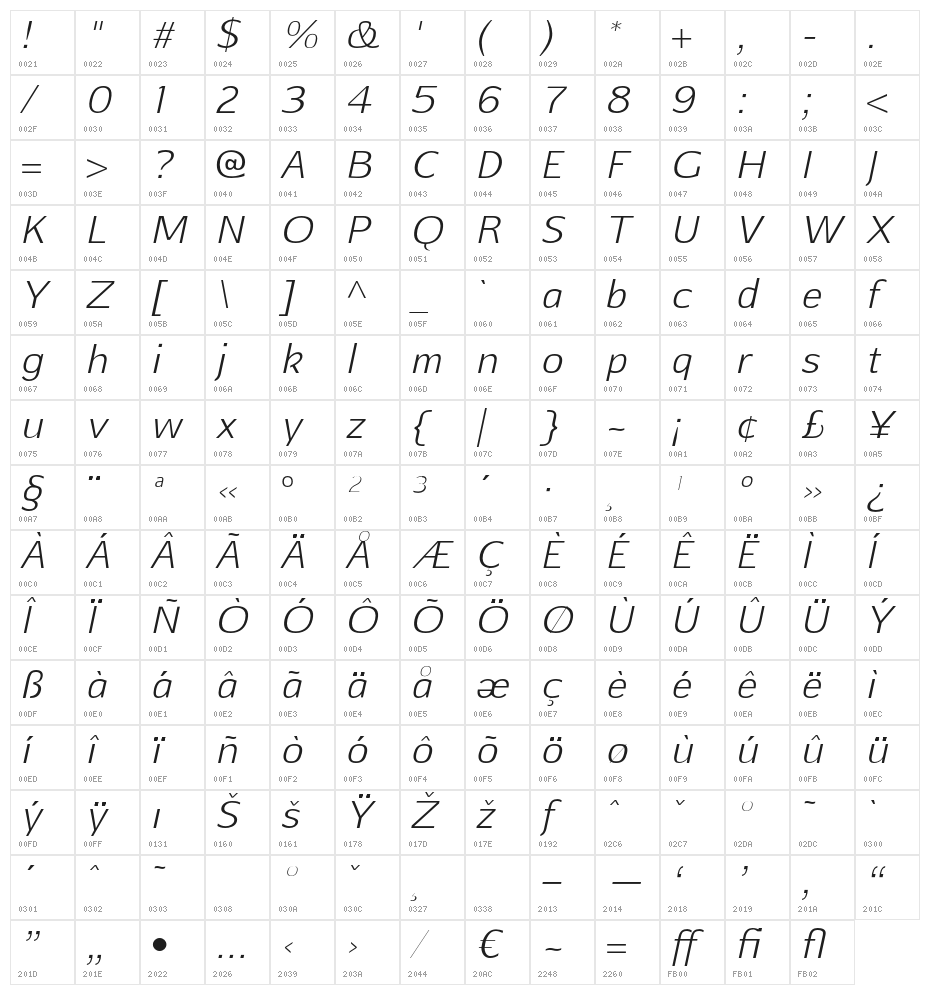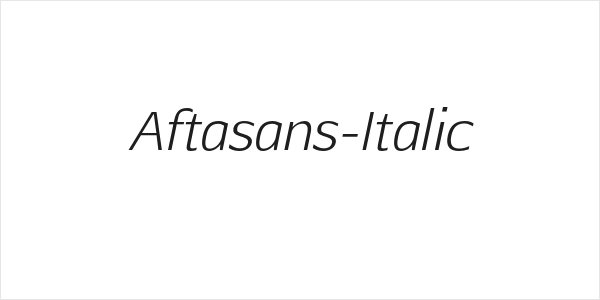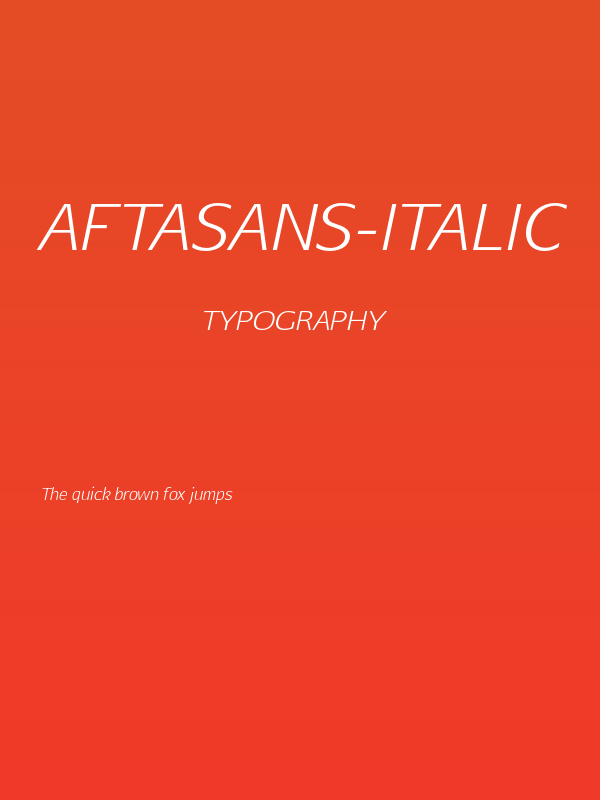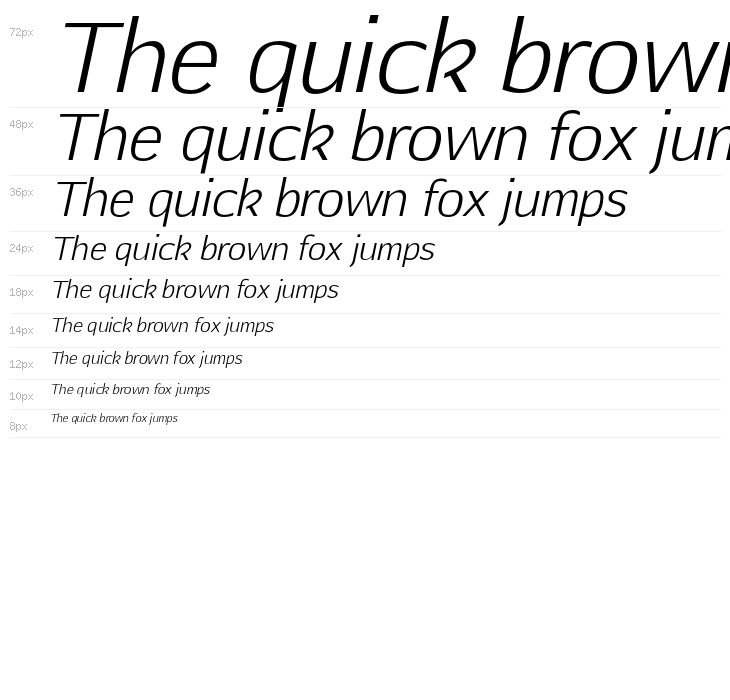
Aftasans-Italic Font
Aftasans-Italic Description
This font features a sleek and modern design with a subtle italic slant, giving it a dynamic and fluid appearance. The characters are crafted with precision, showcasing clean lines and a uniform stroke width that contributes to its contemporary aesthetic. The uppercase and lowercase letters maintain a consistent style, while the numerals are clear and legible. Special characters are well-integrated, enhancing the font's versatility. Its overall look is professional and polished, making it suitable for a variety of design applications.
| Proposed Projects | Ideal for branding, advertising, and editorial design projects where a modern and professional look is desired. |